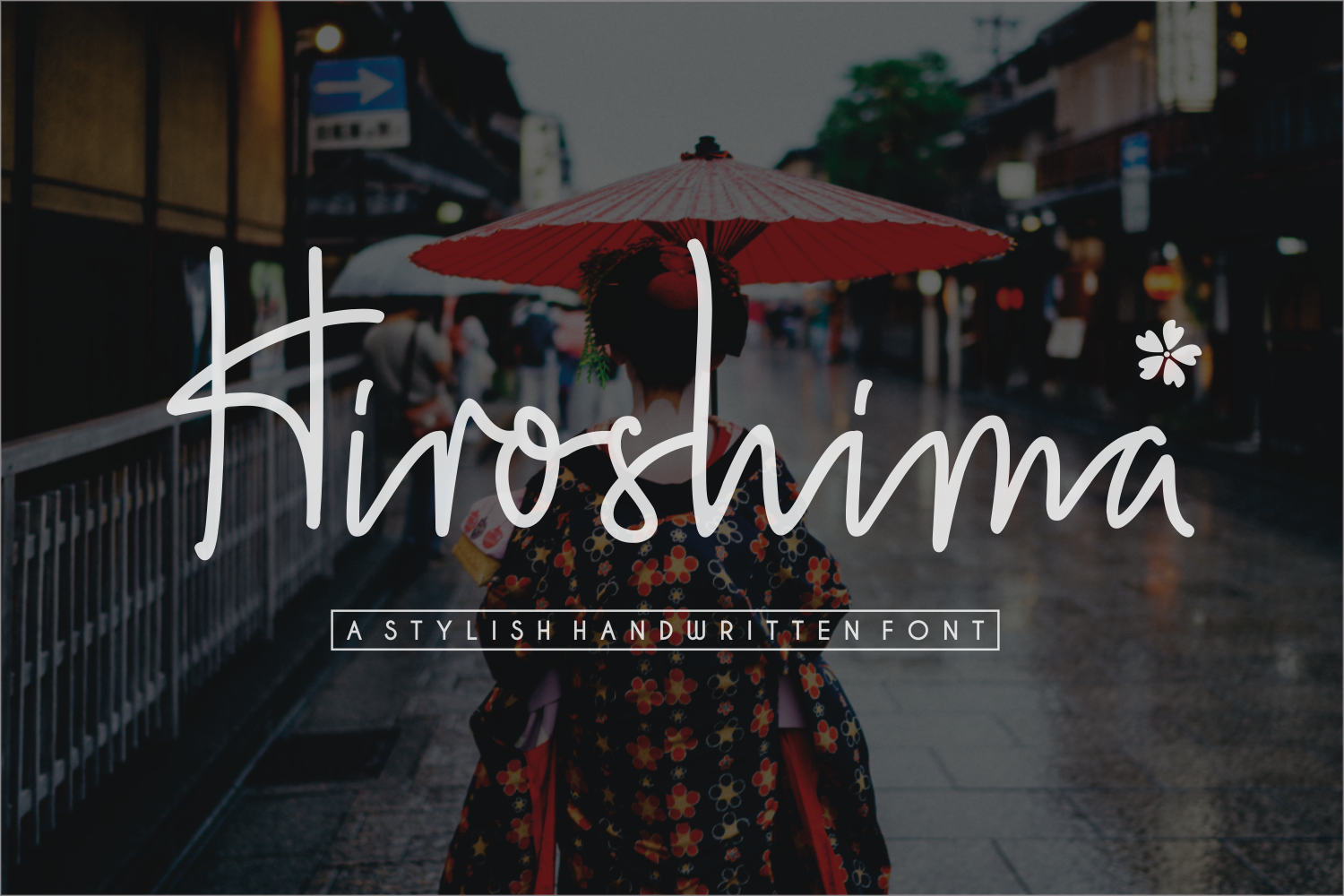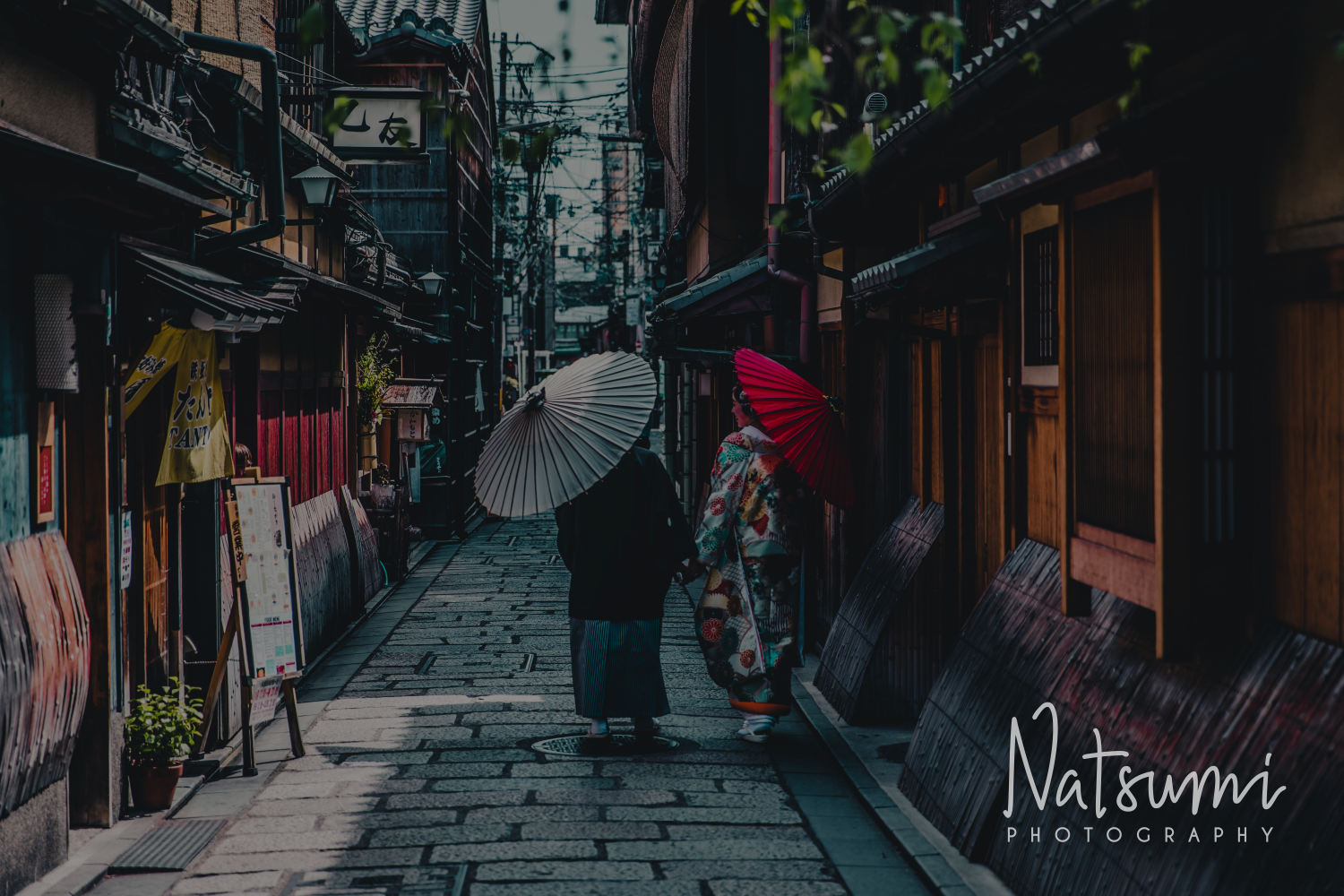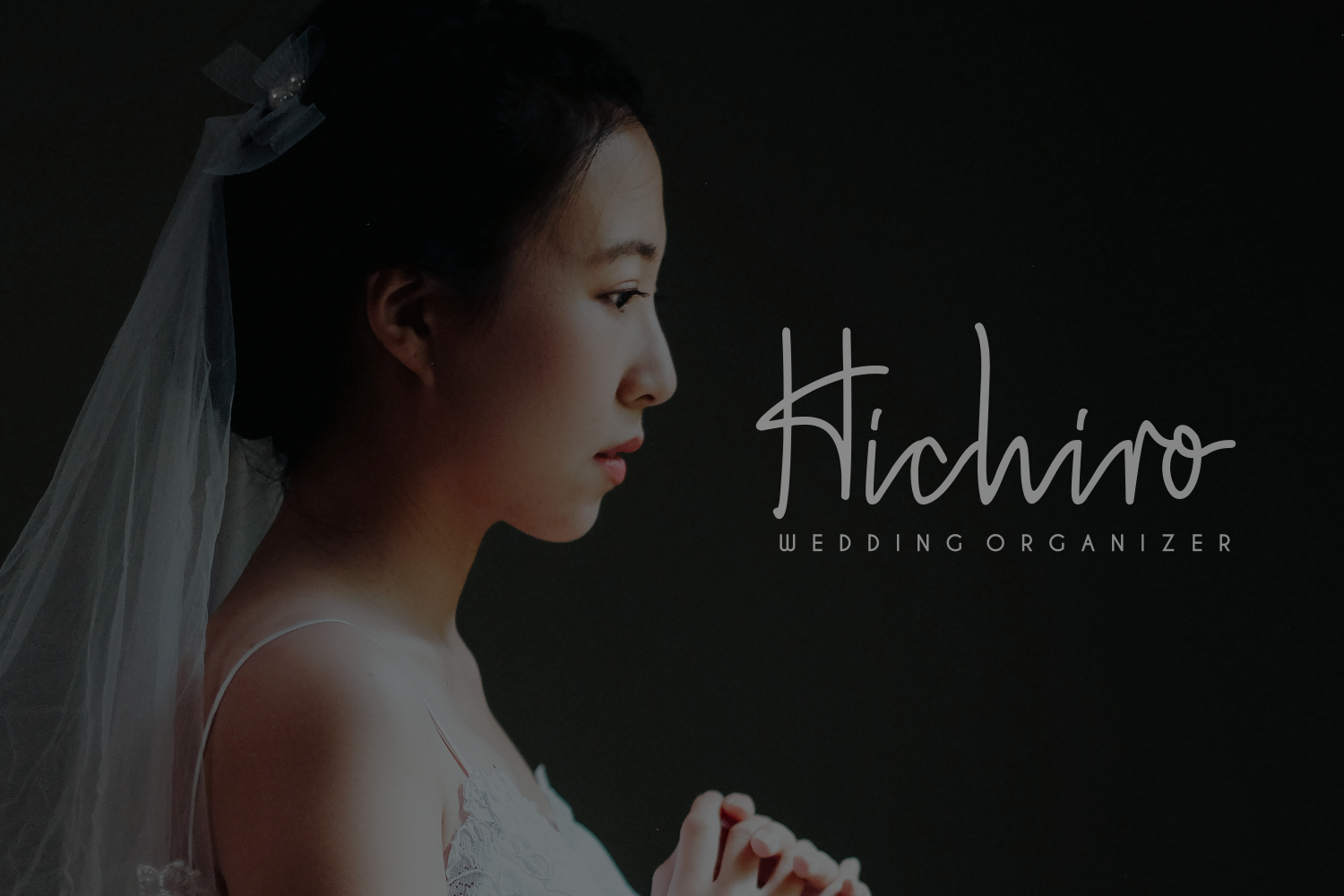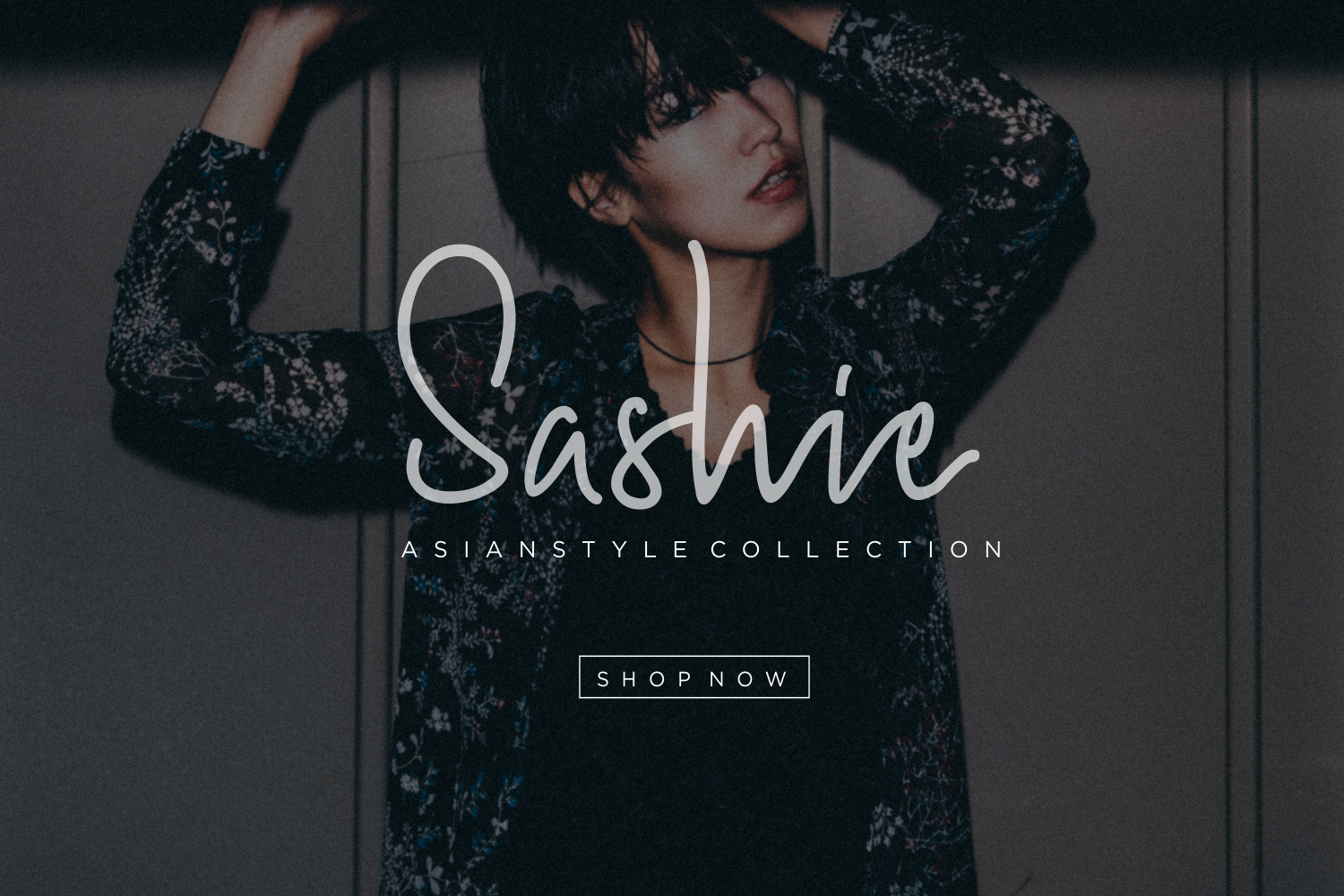
About Hiroshima Font
Meet Hiroshima – A stylish handwritten font with thick strokes and elegant lines makes this font looks natural, stylish and perfect for any project. Hiroshima is ideal for use in photography, watermark, social media posts, advertisements, logos & branding, invitation, product designs, label, stationery, wedding designs, product packaging, special events or anything that need handwritten and signature taste .